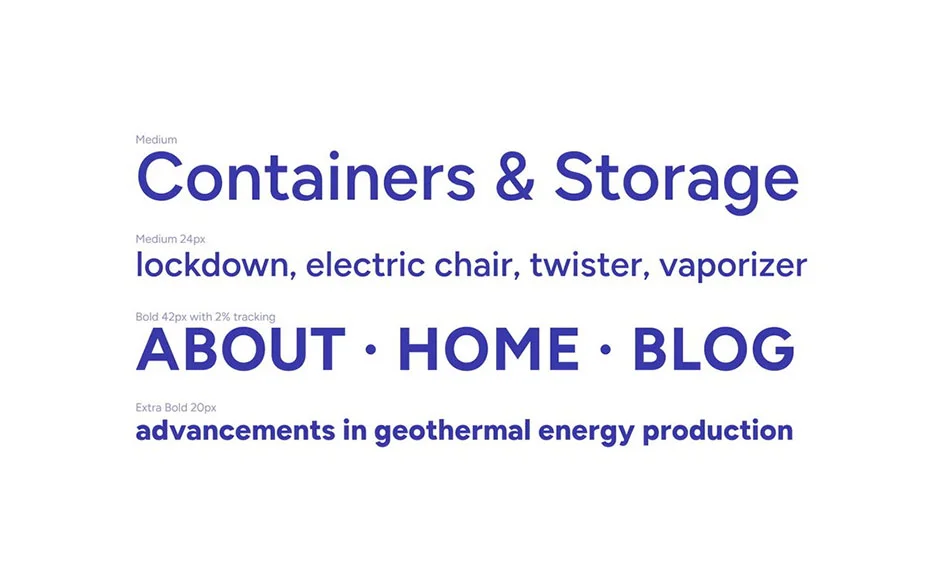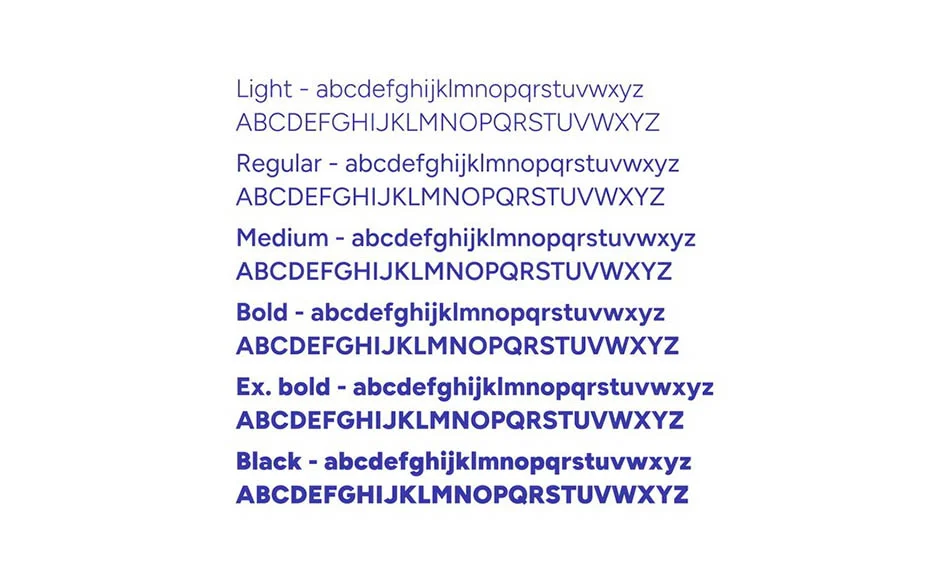
Blueberry Sans Font is a sans serif font that has a versatile look. It has created by Seattle-based designer Erik D. Kennedy for the first time in 2021.
All letters are created with thick strokes along with modern powerful quality. That is why it becomes the best choice for modern designs. And also for the professional designs.
It has awesome abilities to make a design stand out and unique. That’s why once a designer understands its ability then he will surely use it in various designs.
This font versatility you can observe in its letters. In which each letter has been created with full concentration and experience. That is why you didn’t find any mistake in its letters.
Due to its clean and elegant texture, you can create covers, posters, business cards, logos, product designs, and many other things. Also, it’s the best choice for web development.
This remarkable font has 6 weights along with vast language support. In this way, it will surely be able to create various designs in various languages.
International language support